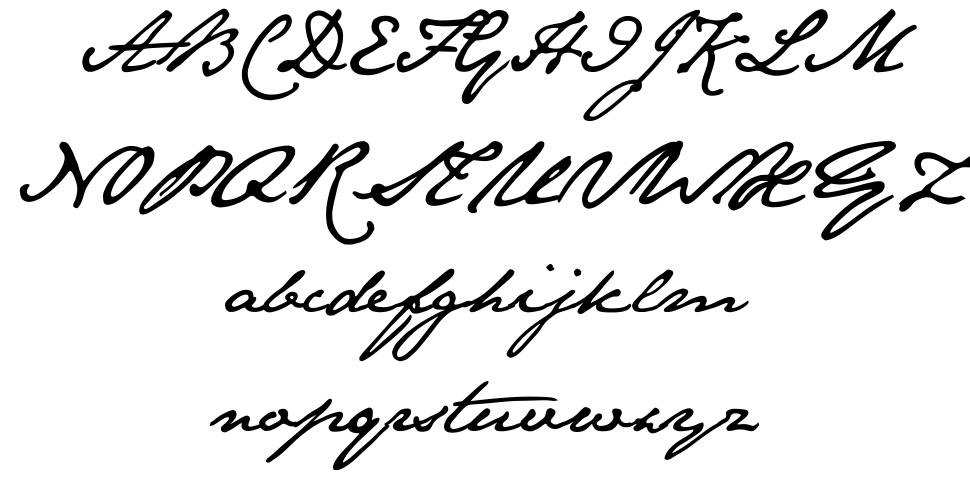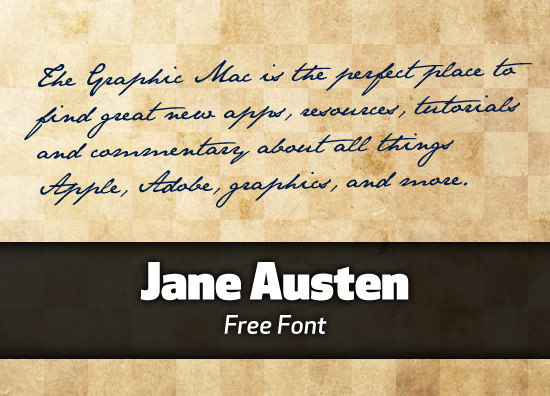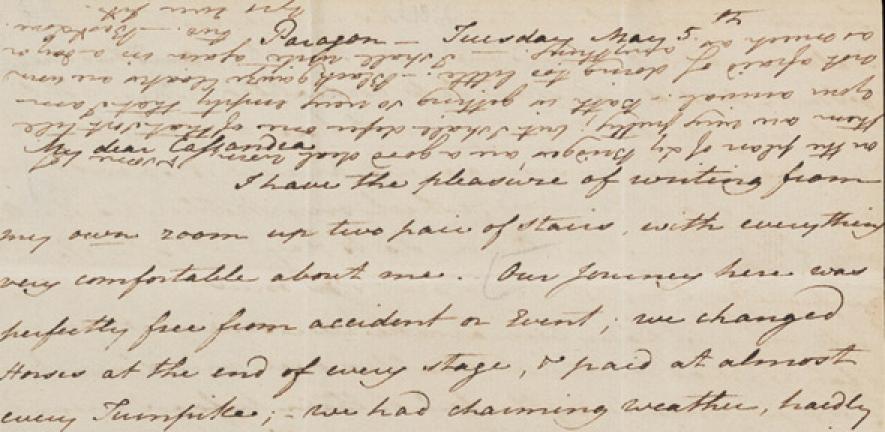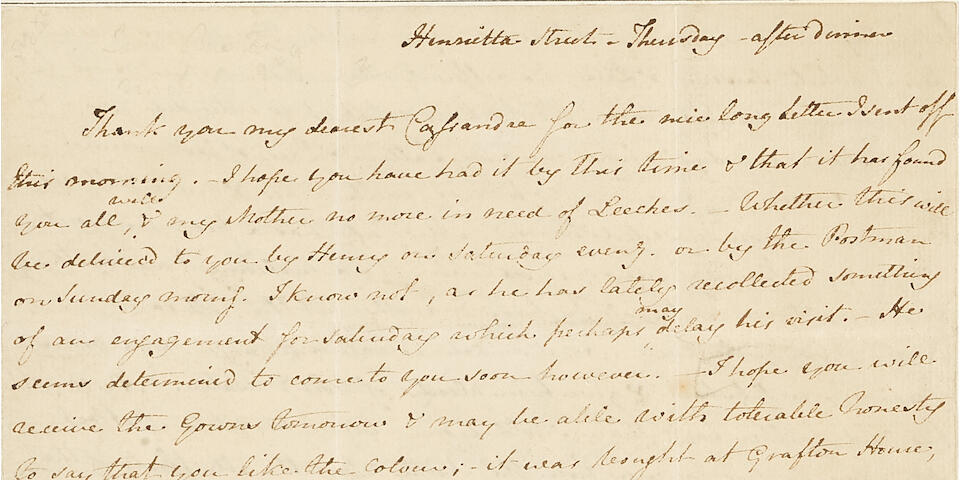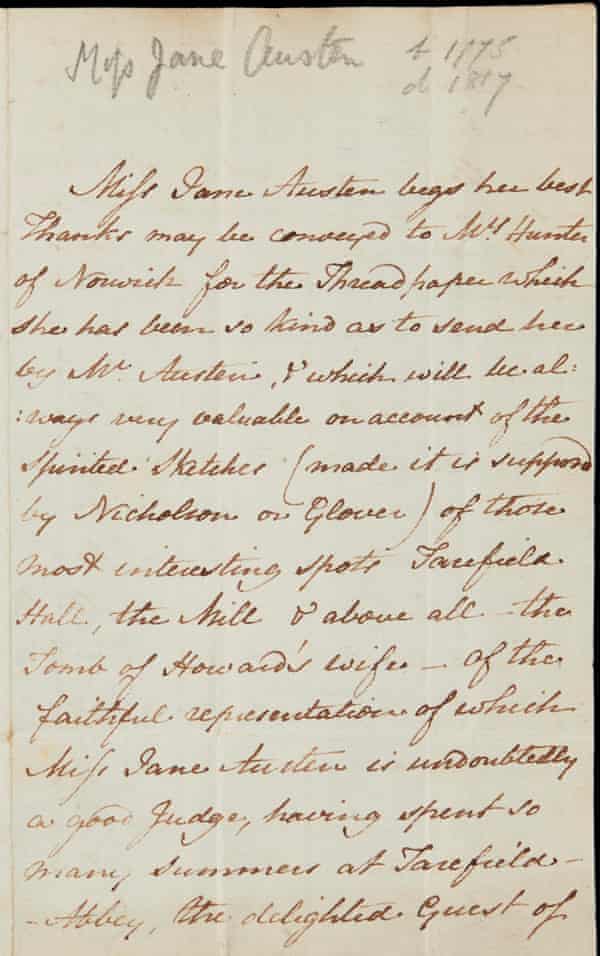
Jane Austen Font
Jane austen font. Download JaneAusten font free!. Jane Austen used to be designed and shares through piafrauss Jane Austen is a handcrafted signature style font with lovely characters that is a historic font, however, it is usually very useful for handwriting fans, you should utilize it as a signature considering it is so common and respectable. The best website for free highquality Jane Austen fonts, with 25 free Jane Austen fonts for immediate download, and 27 professional Jane Austen fonts for the best price on the Web.
About Jane Austen Font Paying homage to a favourite author can be a painful and tricky thing, so please don't suppose that this font, though made up out of characters written by Jane Austen, is really quite equal to her handwriting Like every intelligent person, she commanded lots of varying letter forms, depending on the way those letters were connected, and their position in a given word. The JaneAusten font contains 347 beautifully designed characters ️ Customize your own preview on FFontsnet to make sure it`s the right one for your designs. Download JaneAusten font free!.